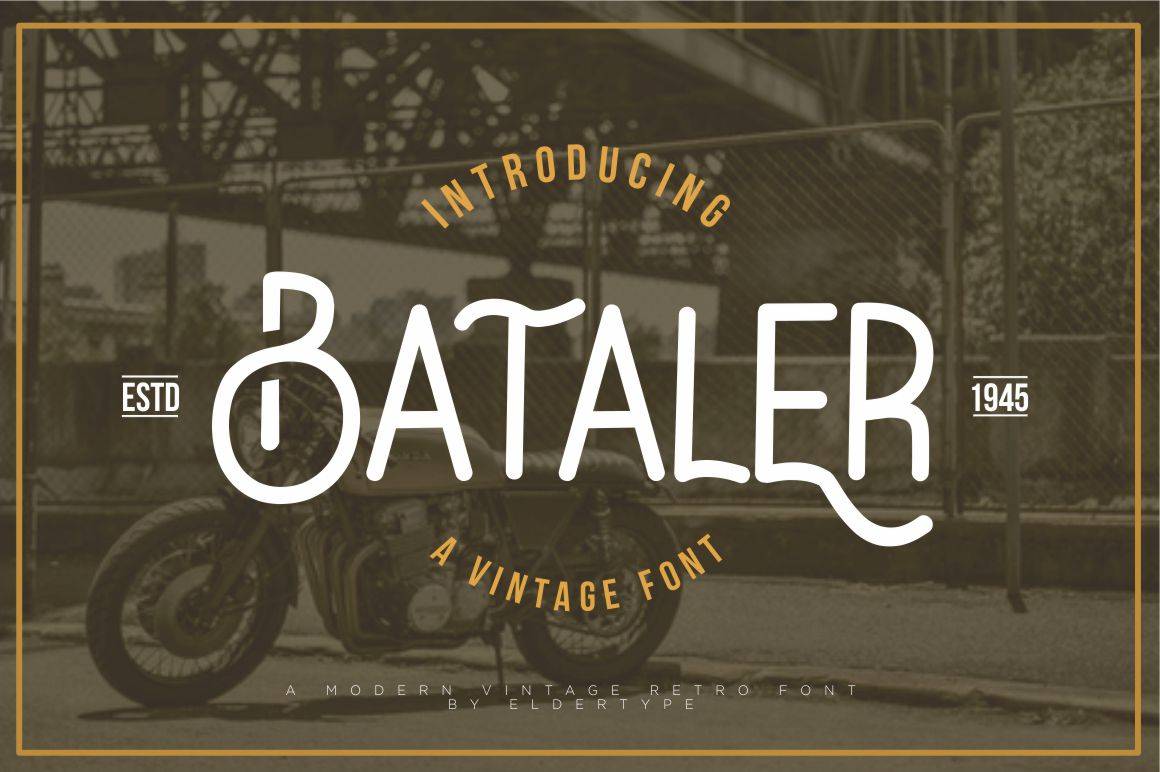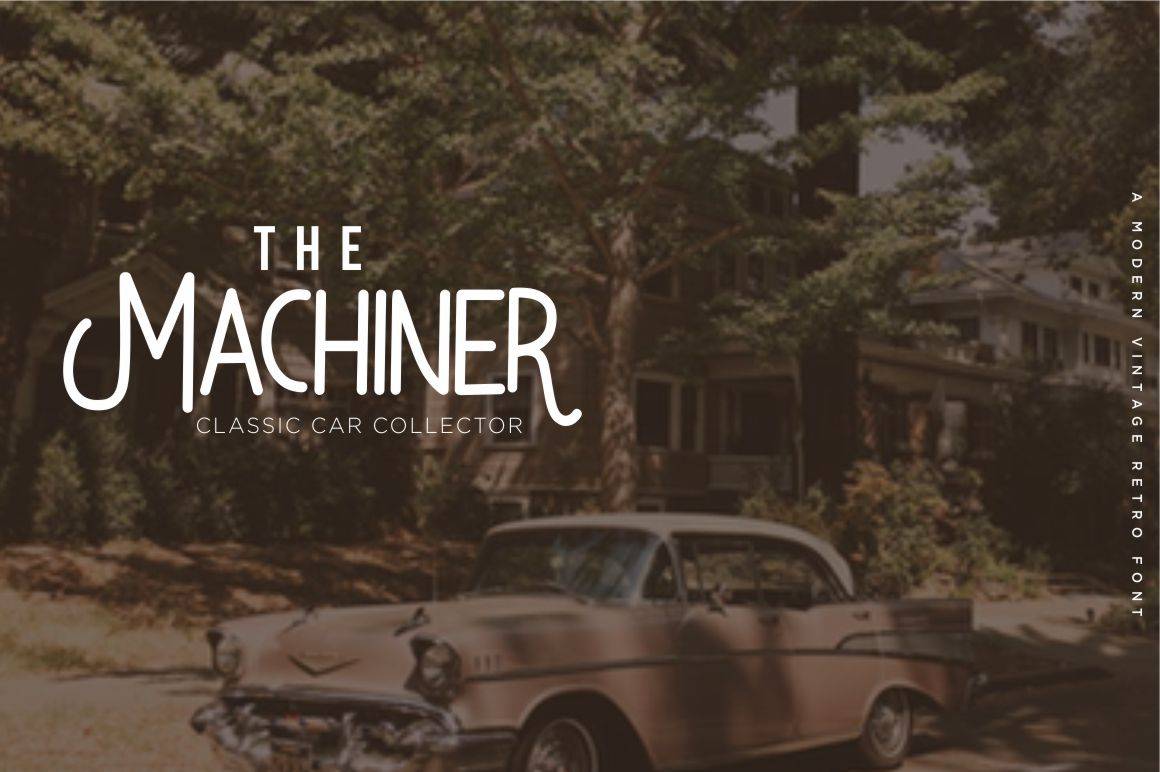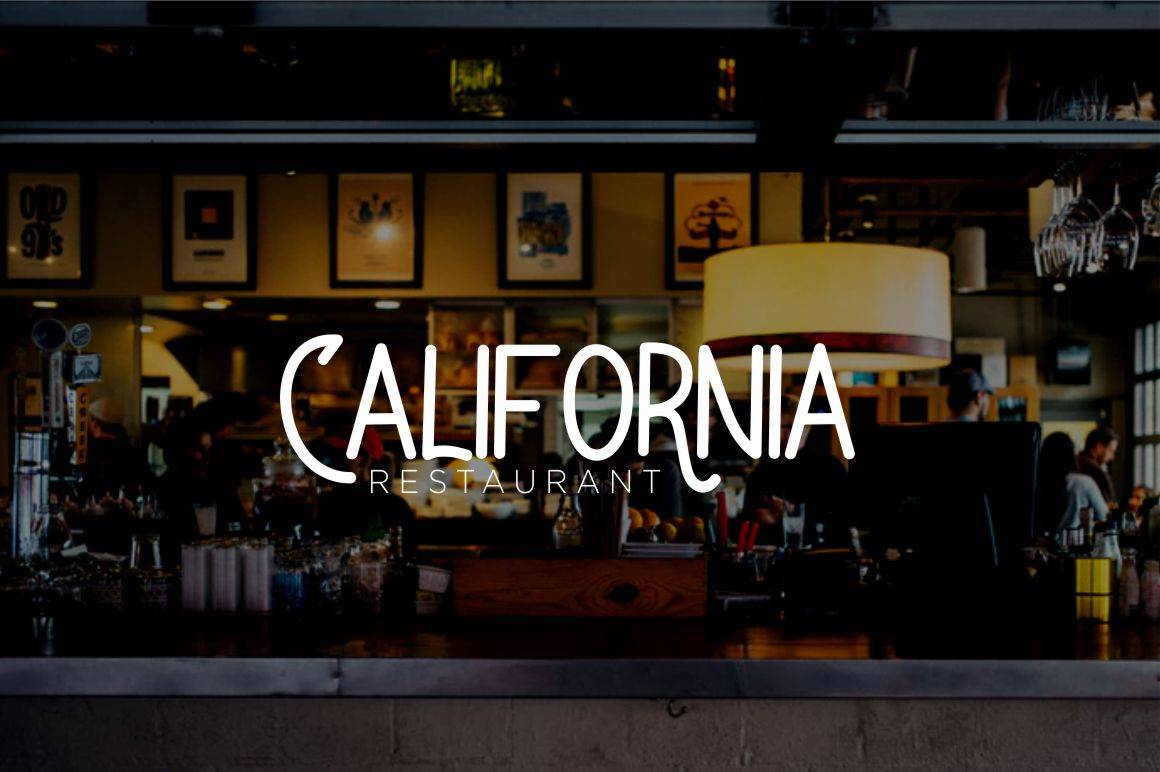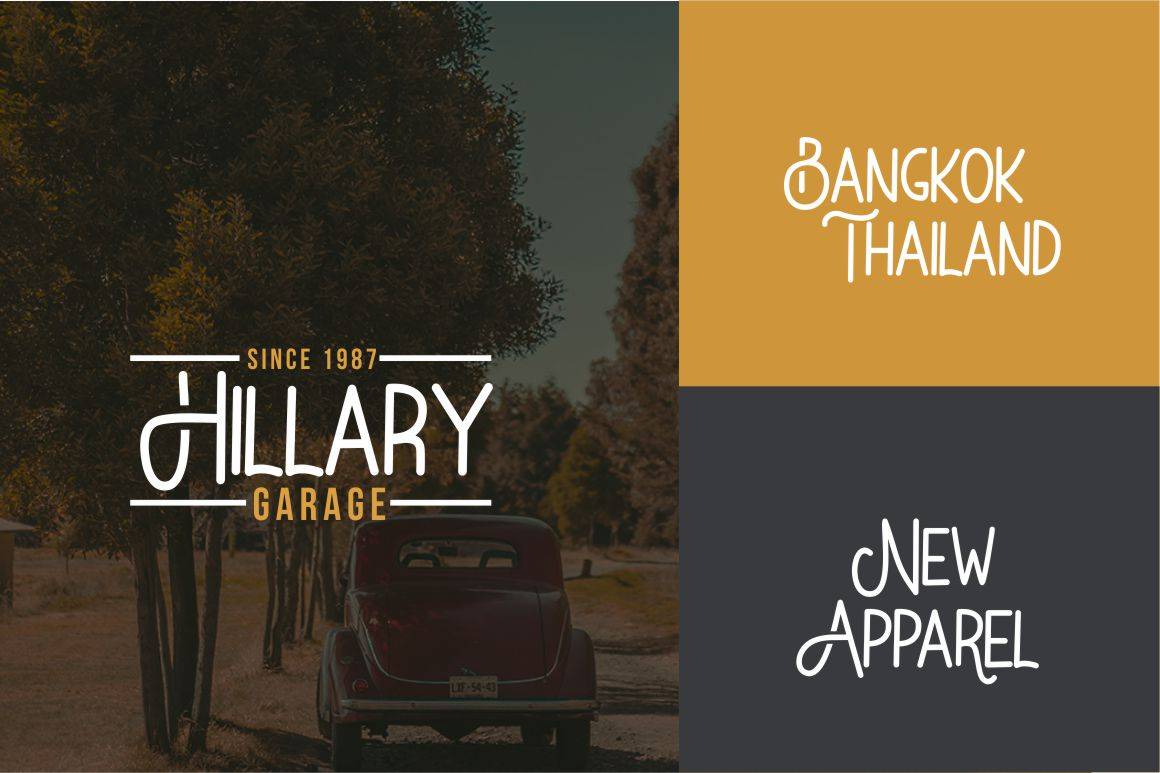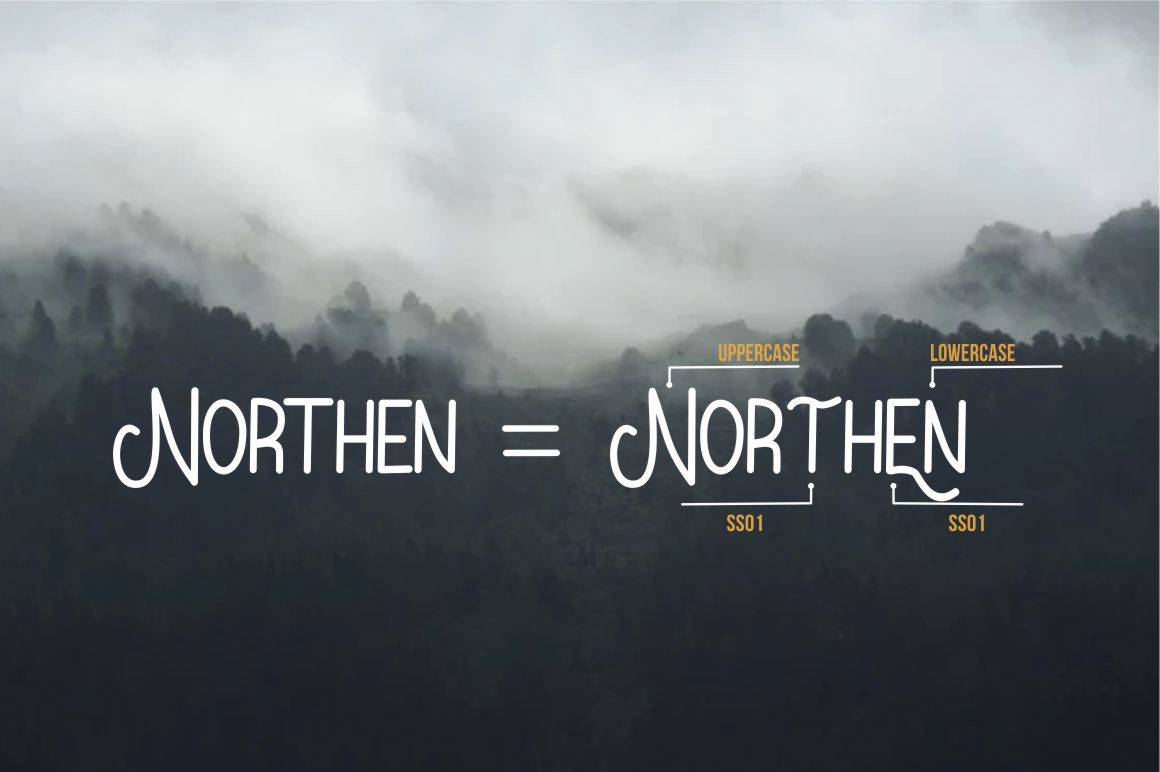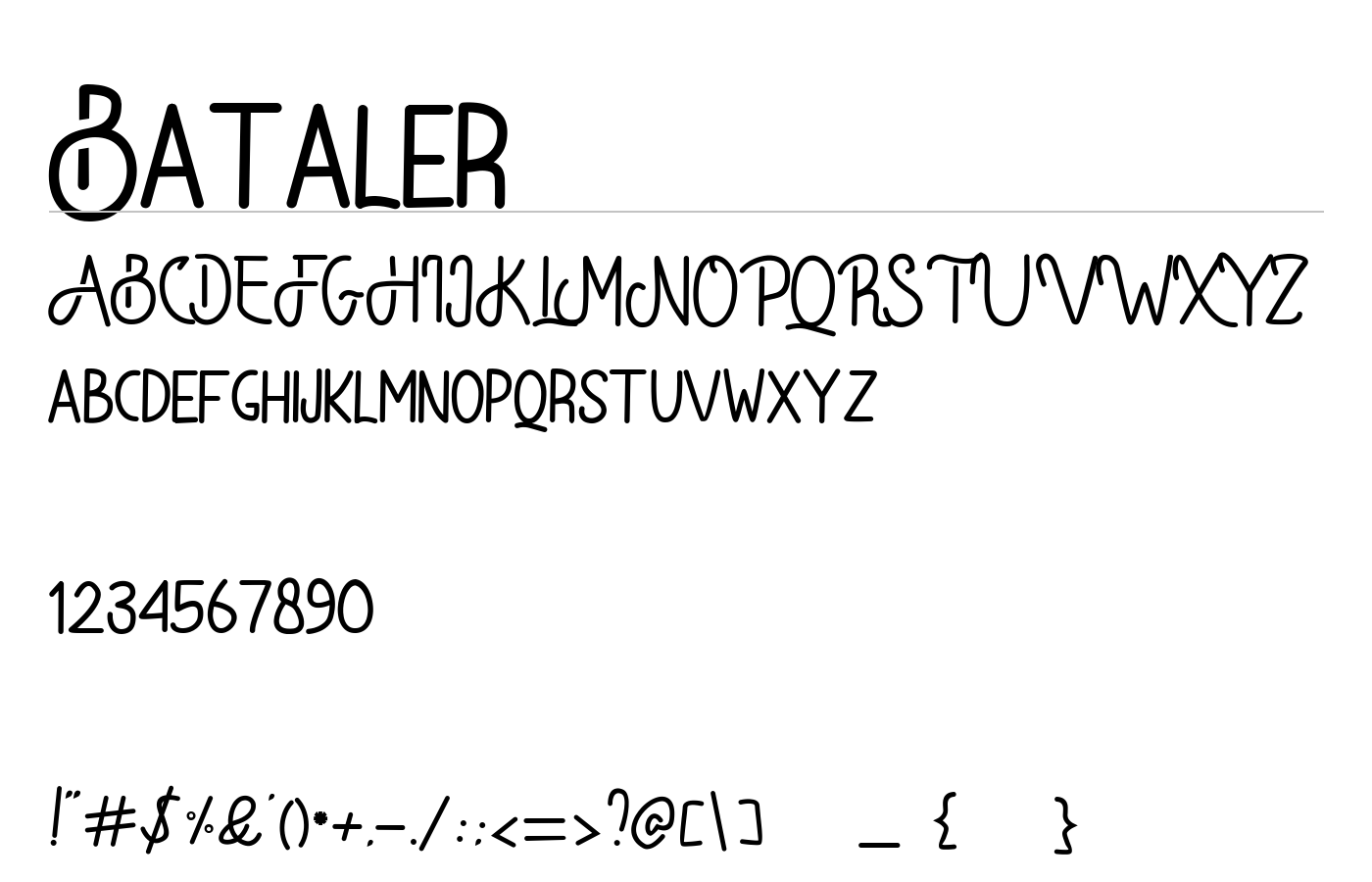
Bataler is a quirky sans serif font with a playful and handmade feel, characterized by its tall, narrow letterforms and uneven stroke lines that give it a casual and friendly personality. The font features unique uppercase alternates with loops and swirls, lending it a whimsical charm perfect for creative, informal designs. It works well for headings, logos, and packaging where a distinctive and approachable style is desired.
Bataler Font
About Bataler Font
| Font family | Bataler Font |